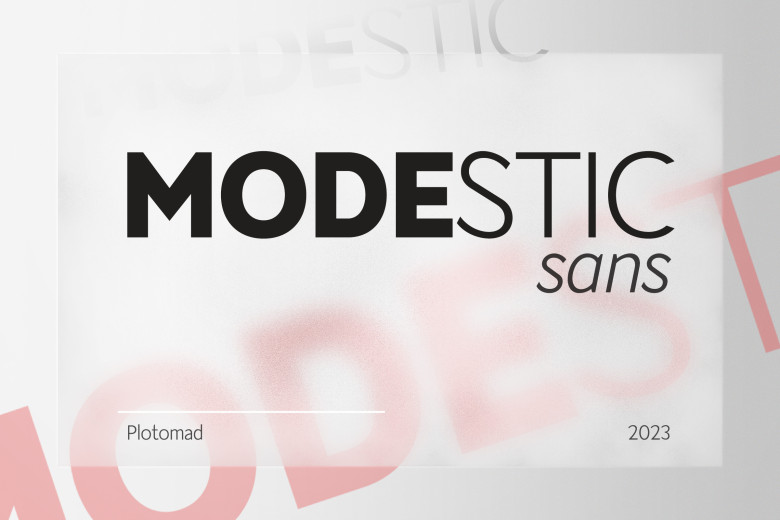
Modestic Sans Font
Modestic sans is an elegant serif-serif font family with minimal design that is suitable for logos, branding materials, advertising materials and packaging applications. Known for its low contrast ratio and minimal aesthetic design features, Modestic sans makes an excellent addition to logos, branding materials and packaging design.
Modestic sans is an ideal font choice for branding projects due to its clean and modern appearance. Additionally, its variety of stylistic alternatives will give your work that extra something.
Modestic Sans Serif Font